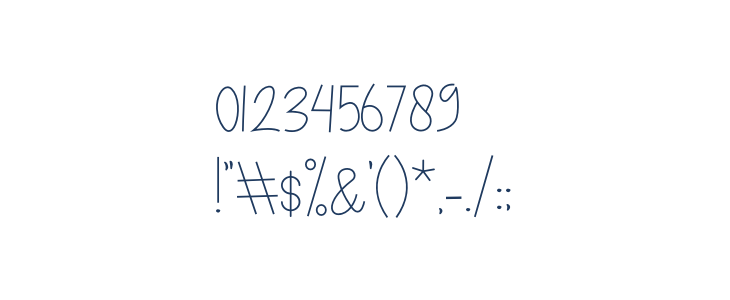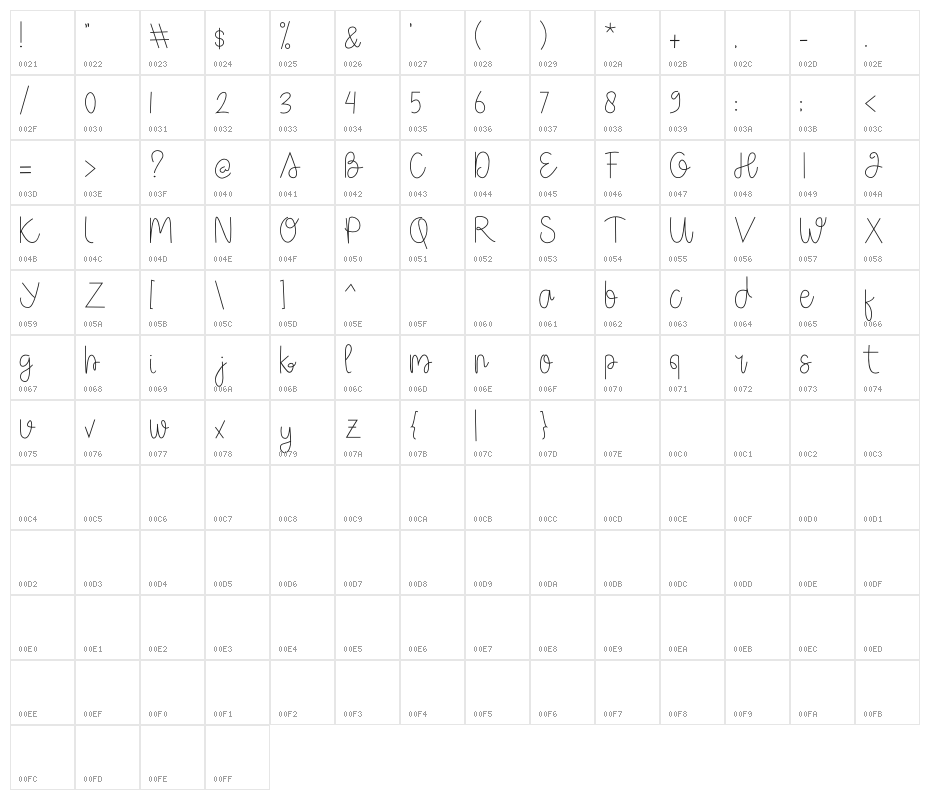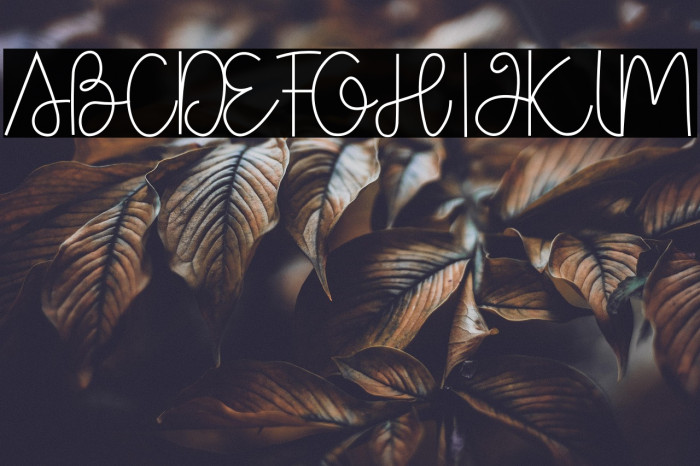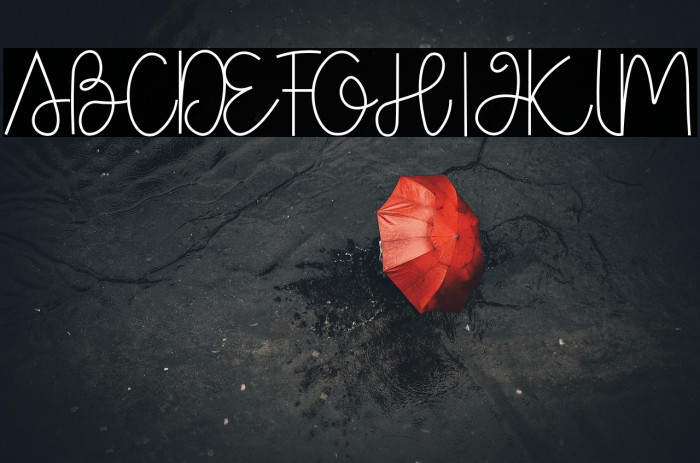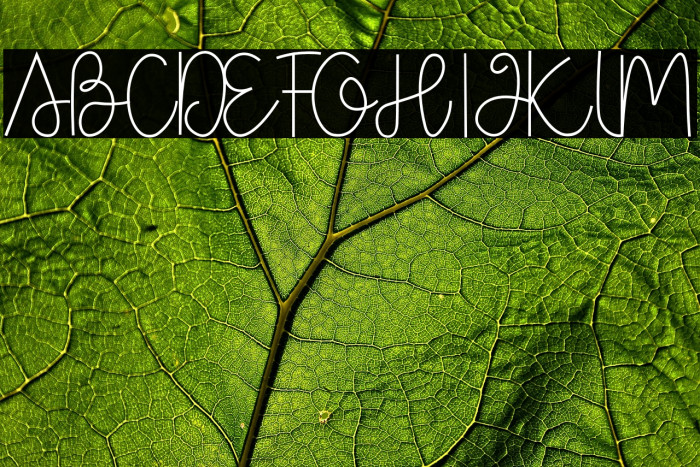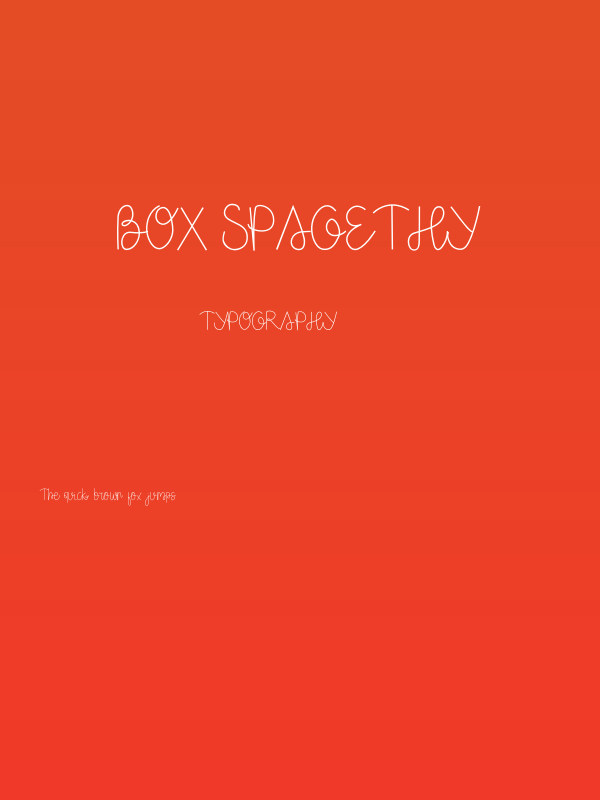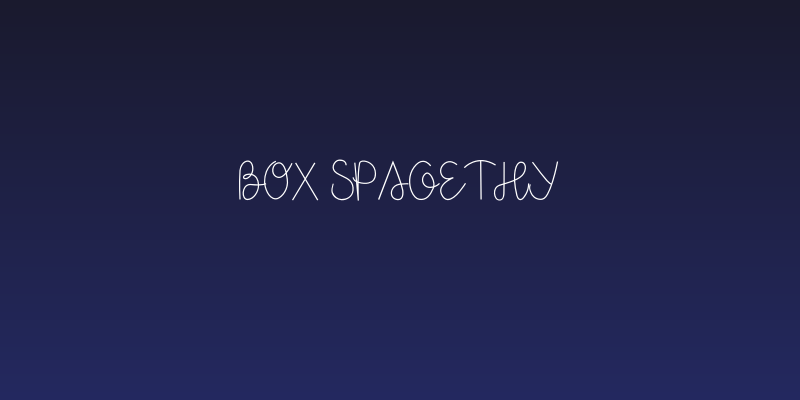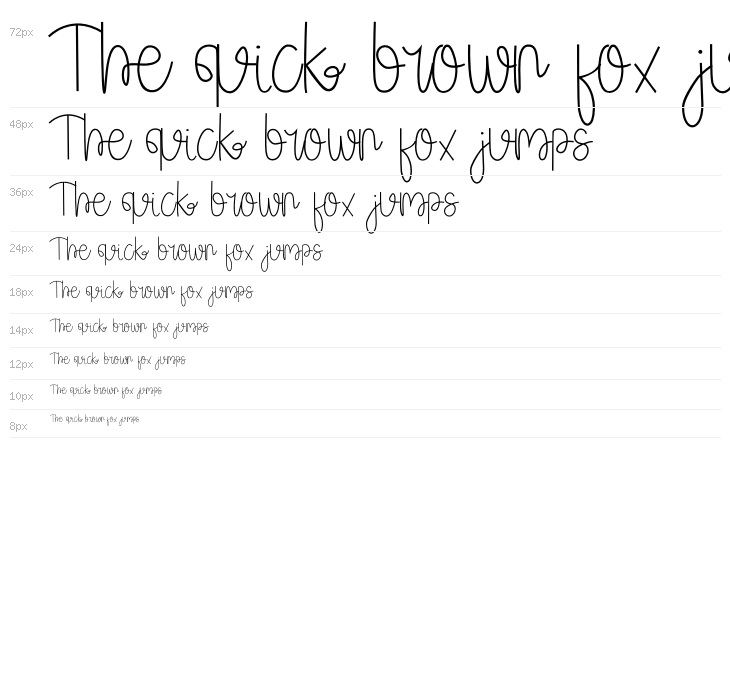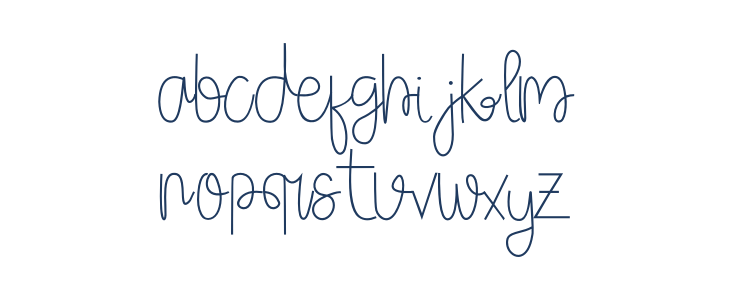
Box Spagethy Font
Box Spagethy Description
This font features a playful, handwritten style with a whimsical and flowing appearance. The characters are crafted with a continuous, smooth line that gives them a sense of movement and fluidity. Uppercase and lowercase letters maintain a consistent height, while the strokes vary slightly in thickness, adding a touch of dynamism. The numbers and special characters are designed to match the overall aesthetic, ensuring a cohesive look. This font exudes a casual and friendly vibe, making it suitable for projects that require a personal touch.
| Overall Style | Casual and playful |
| Use Case | Headlines, Invitations, Creative projects |
| Proposed Projects | Ideal for greeting cards, invitations, children's books, and creative branding. |